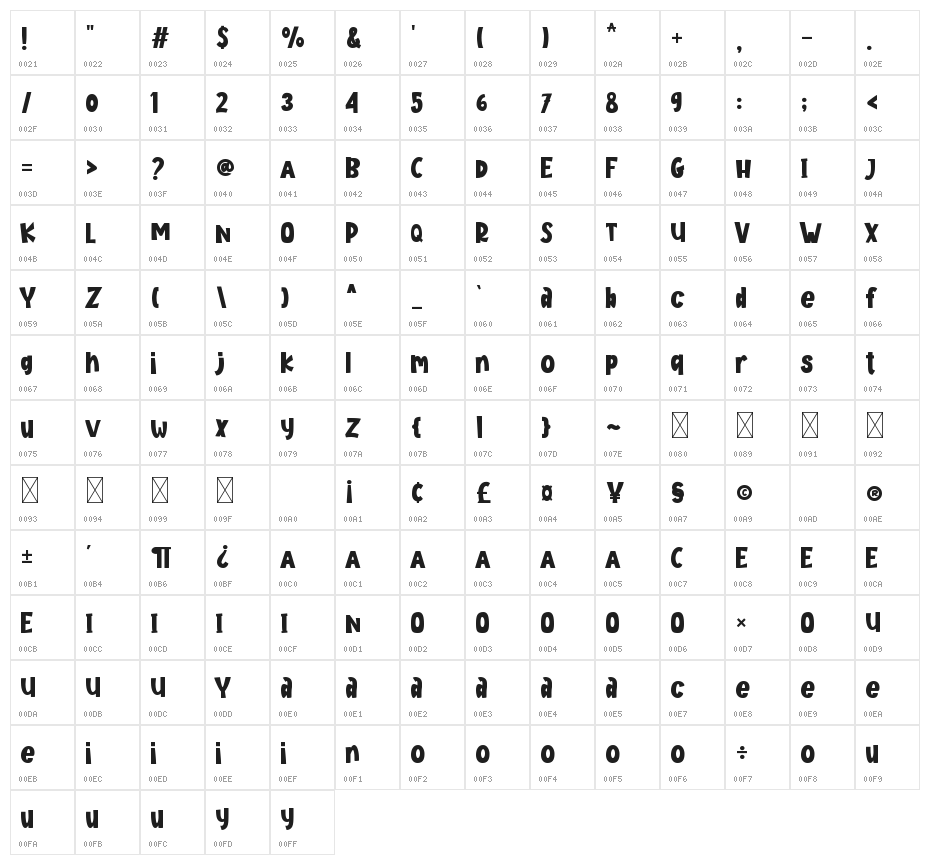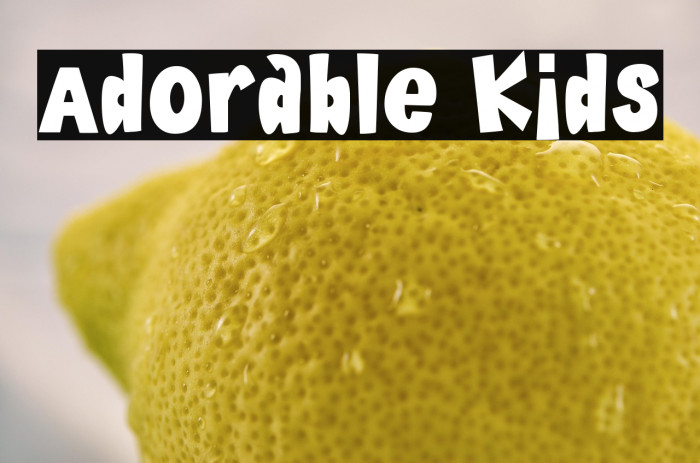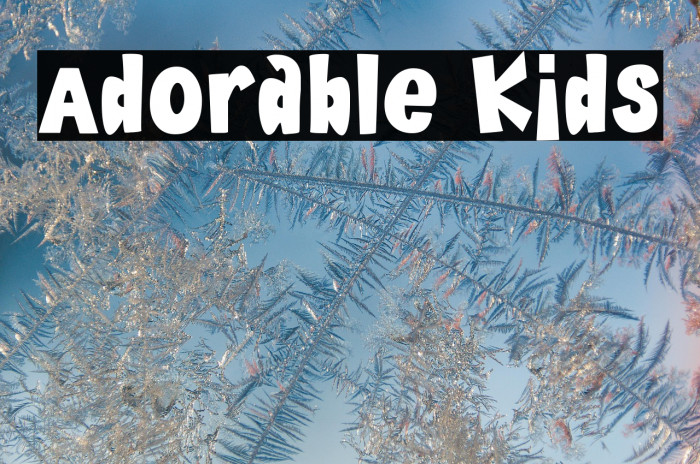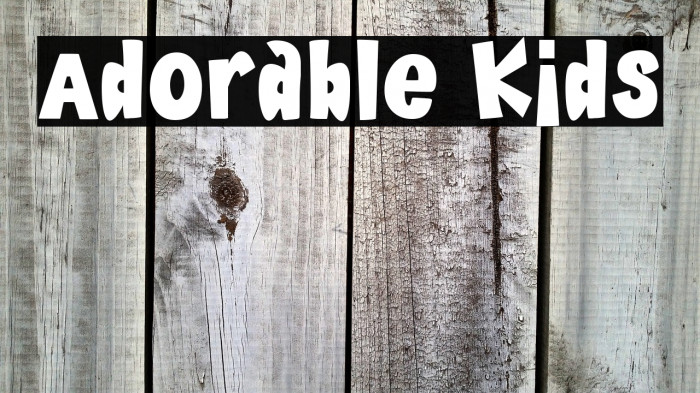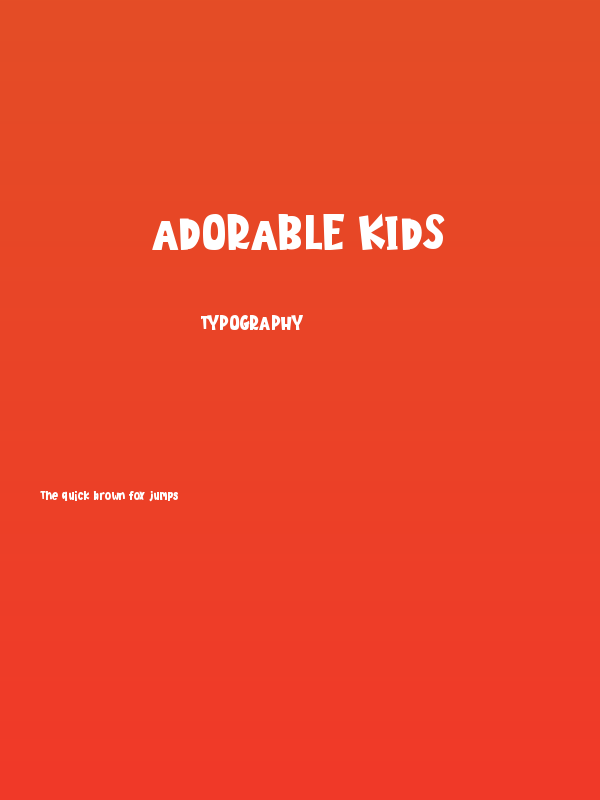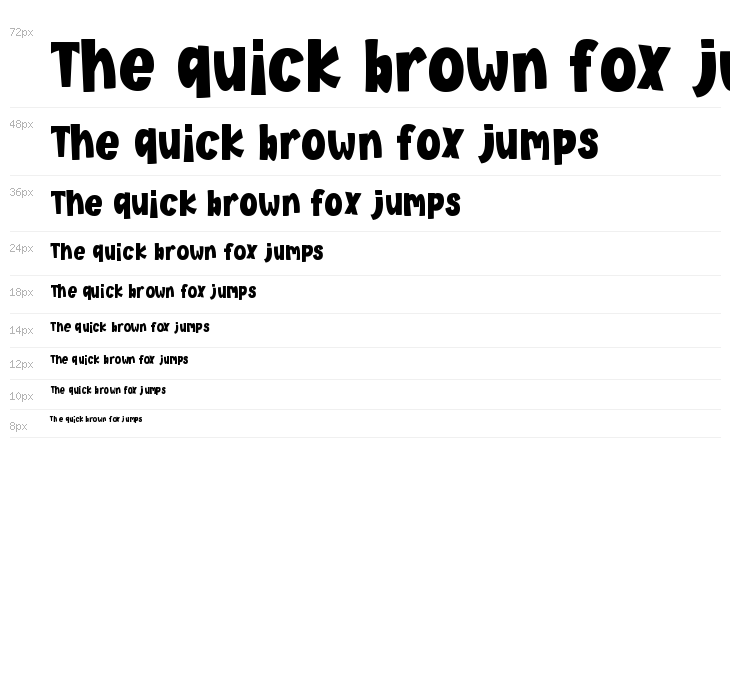
Adorable Kids Font
Adorable Kids Description
This playful and whimsical font features bold, rounded characters with a slightly uneven baseline, giving it a hand-drawn appearance. The uppercase letters are large and prominent, while the lowercase letters maintain a consistent style with a touch of quirkiness. Numbers and special characters follow the same playful design, making the font ideal for projects that require a fun and engaging look. The overall style is informal and friendly, perfect for capturing attention in a lighthearted way.
| Proposed Projects | Ideal for children's books, playful branding, party invitations, and educational materials. |